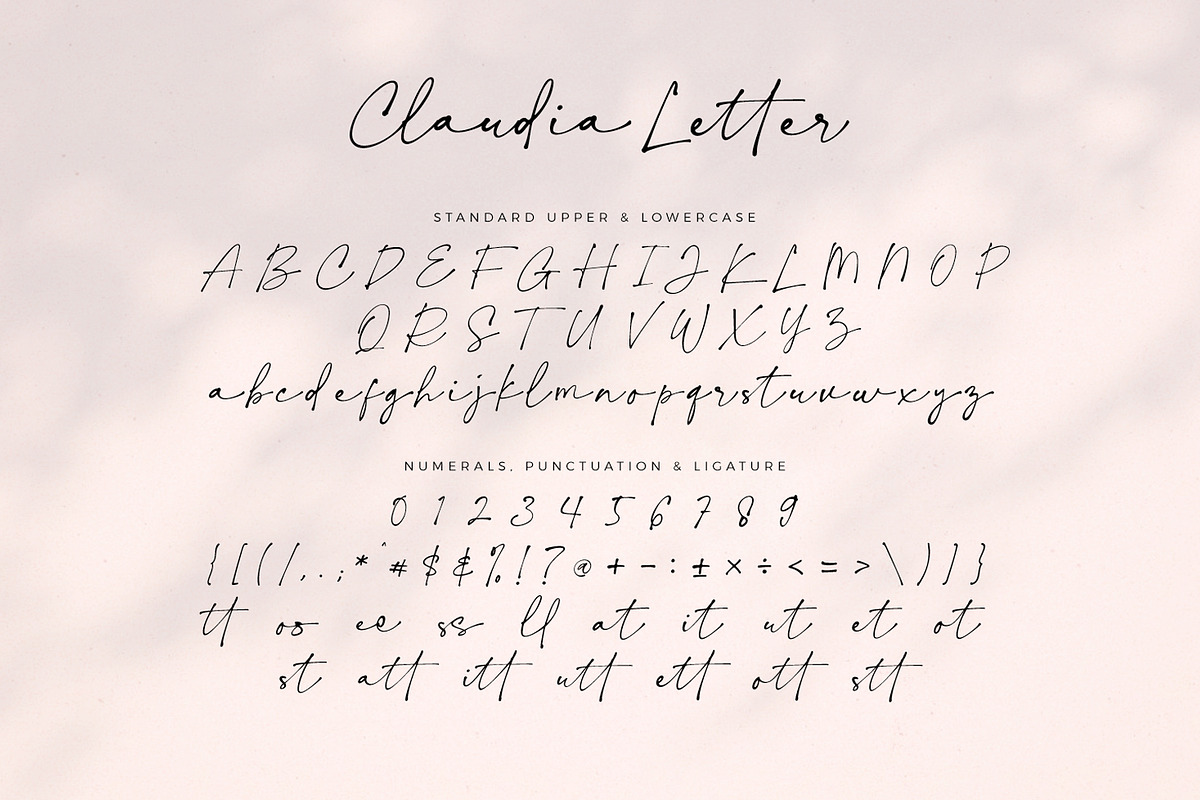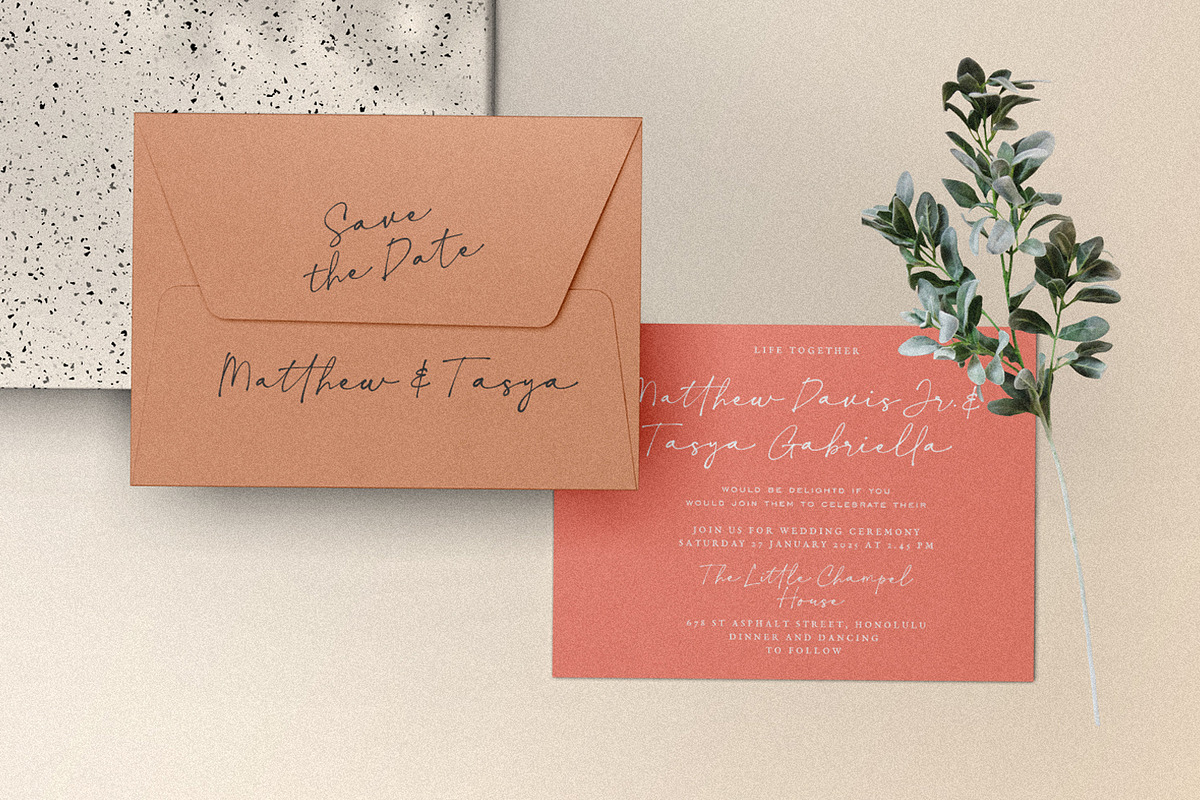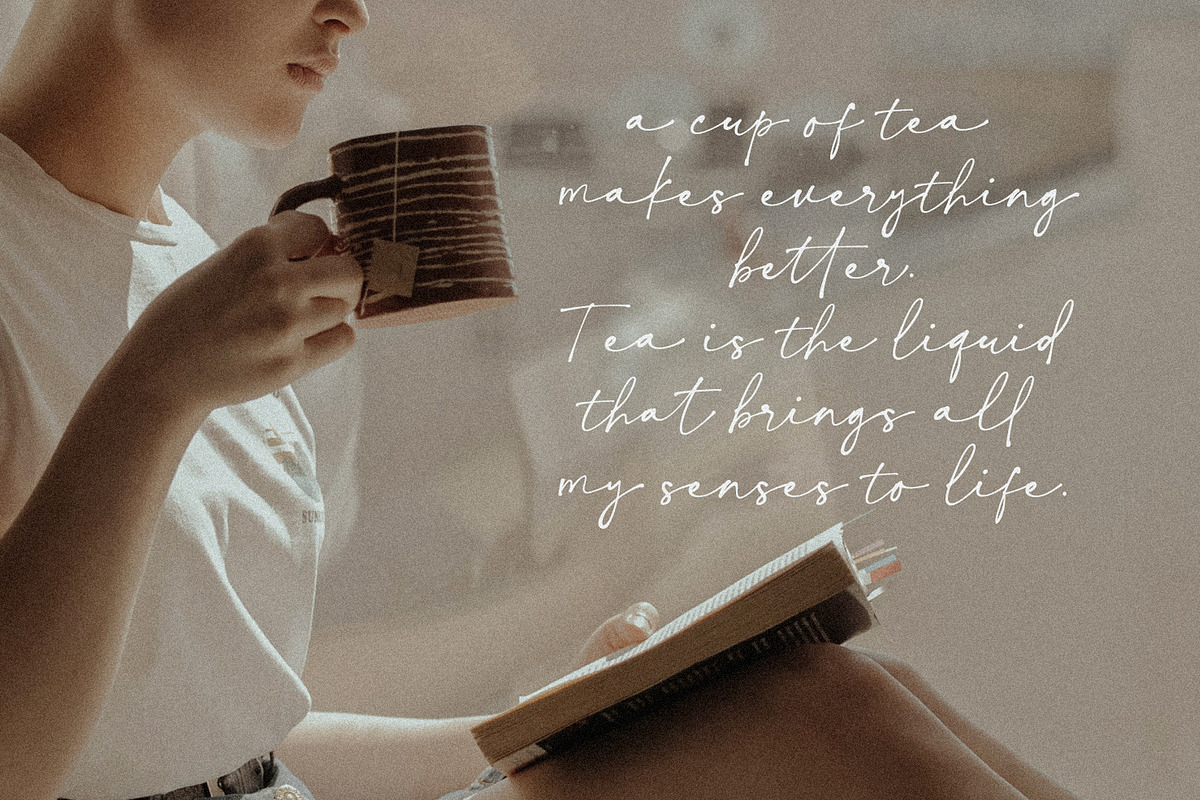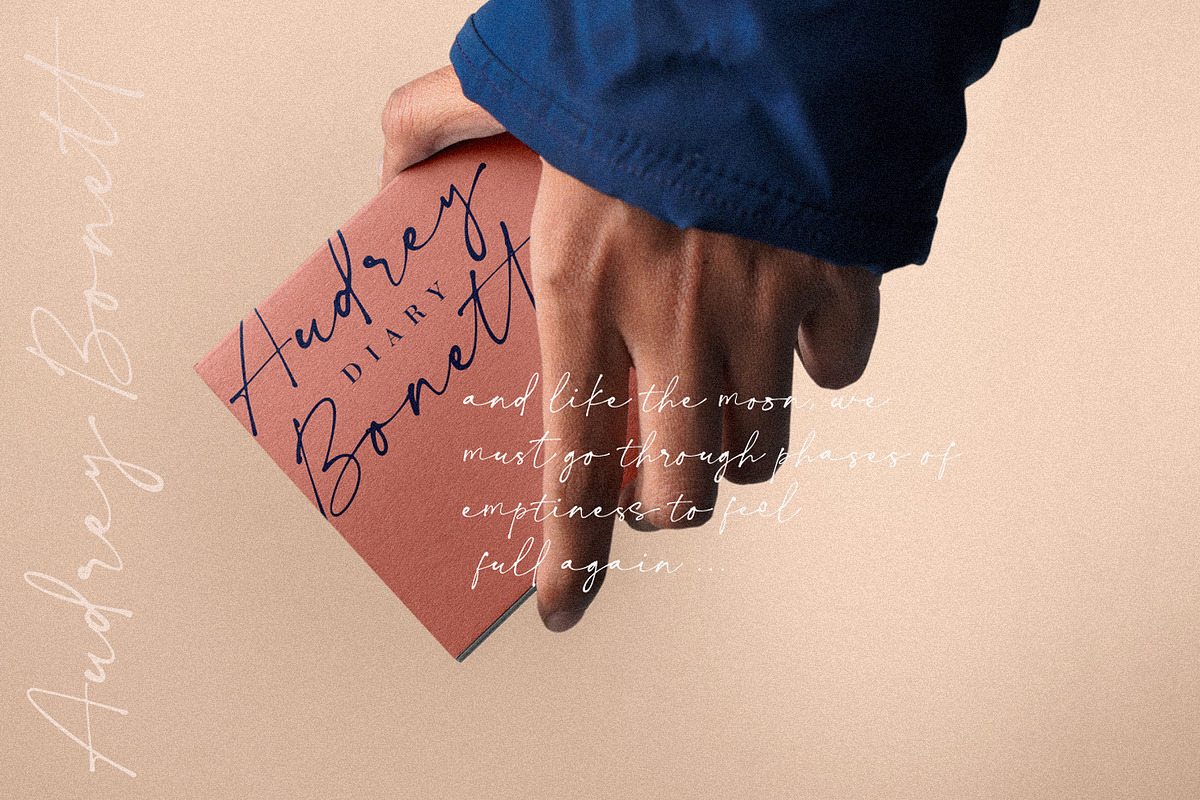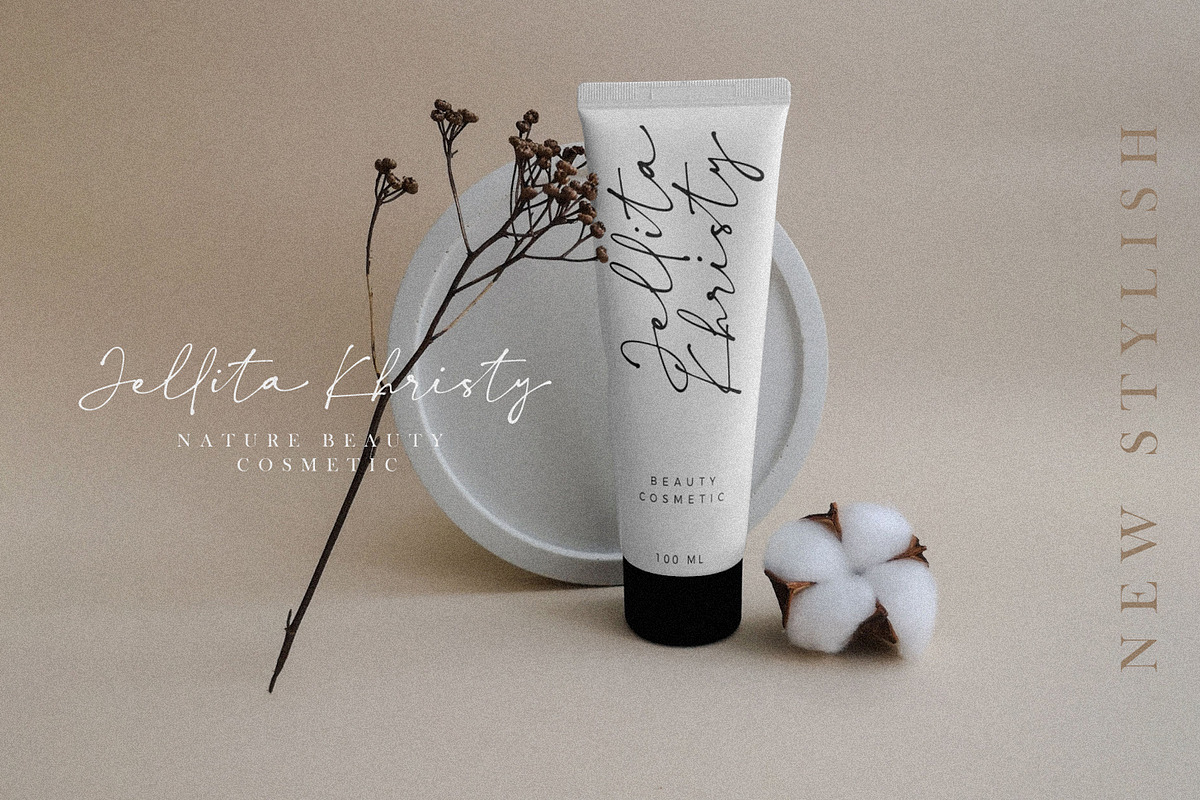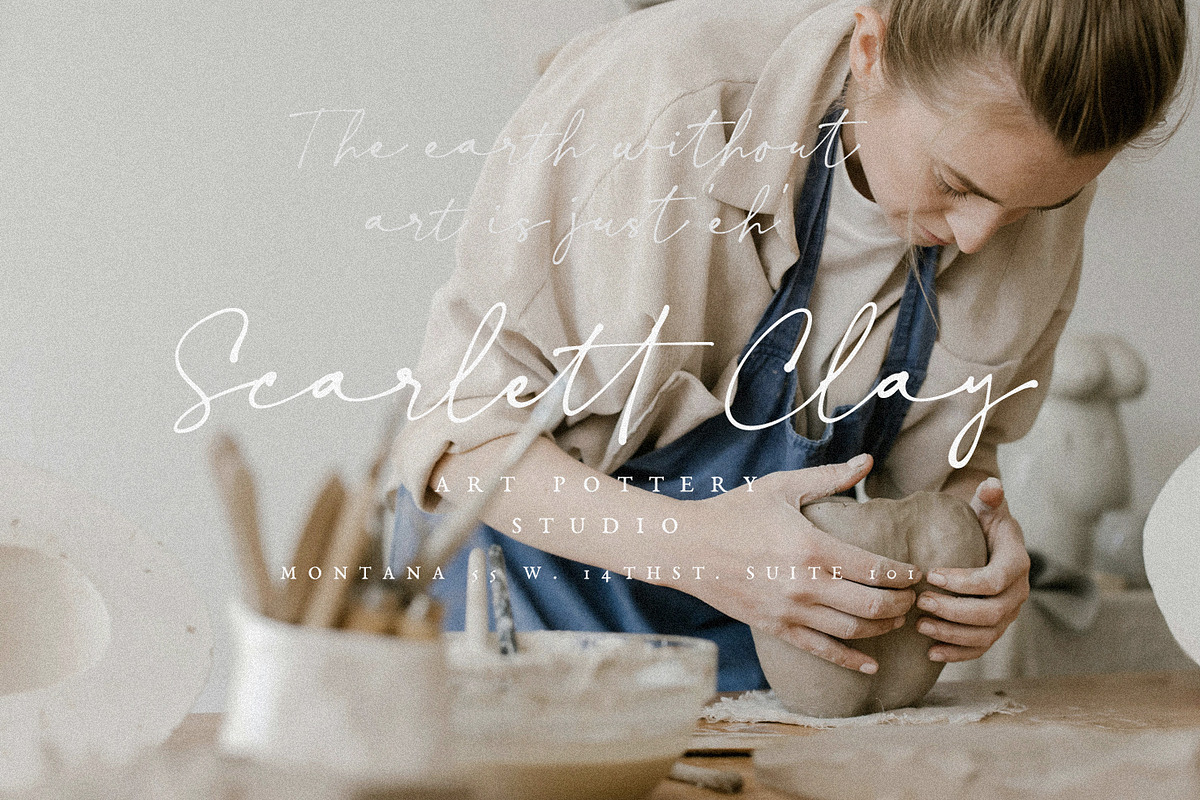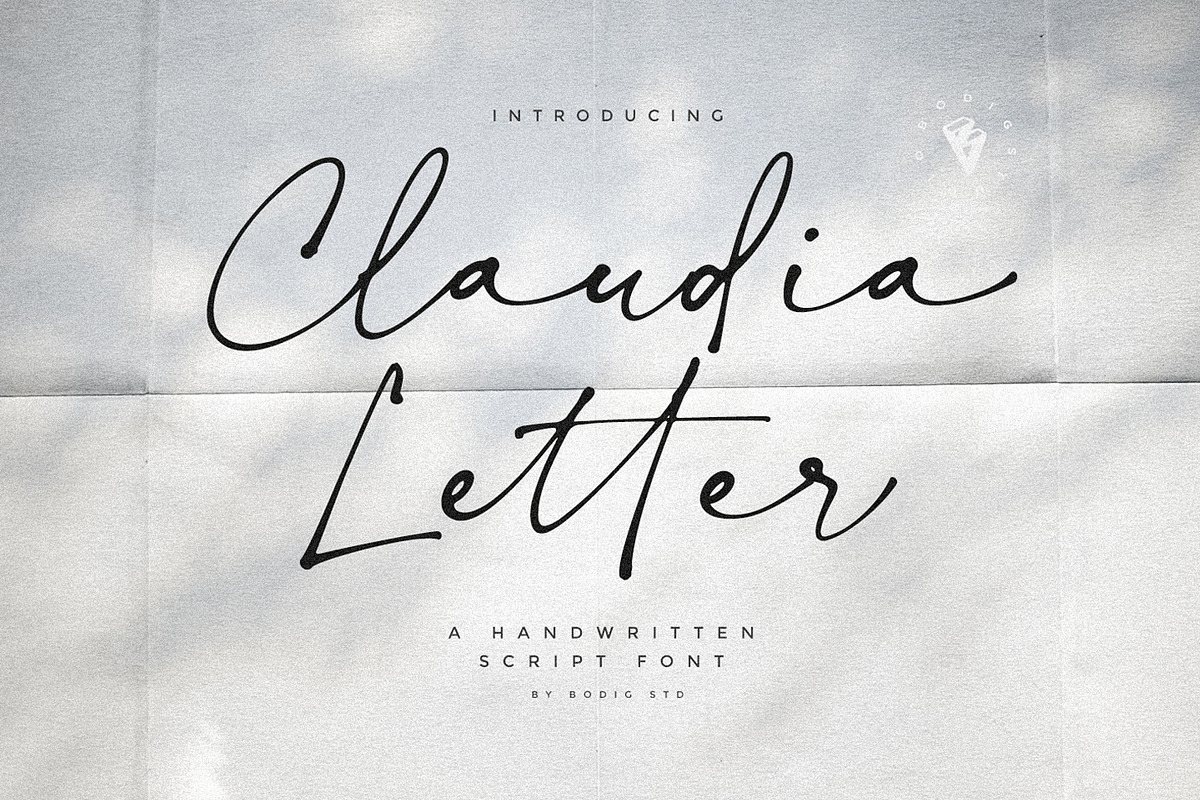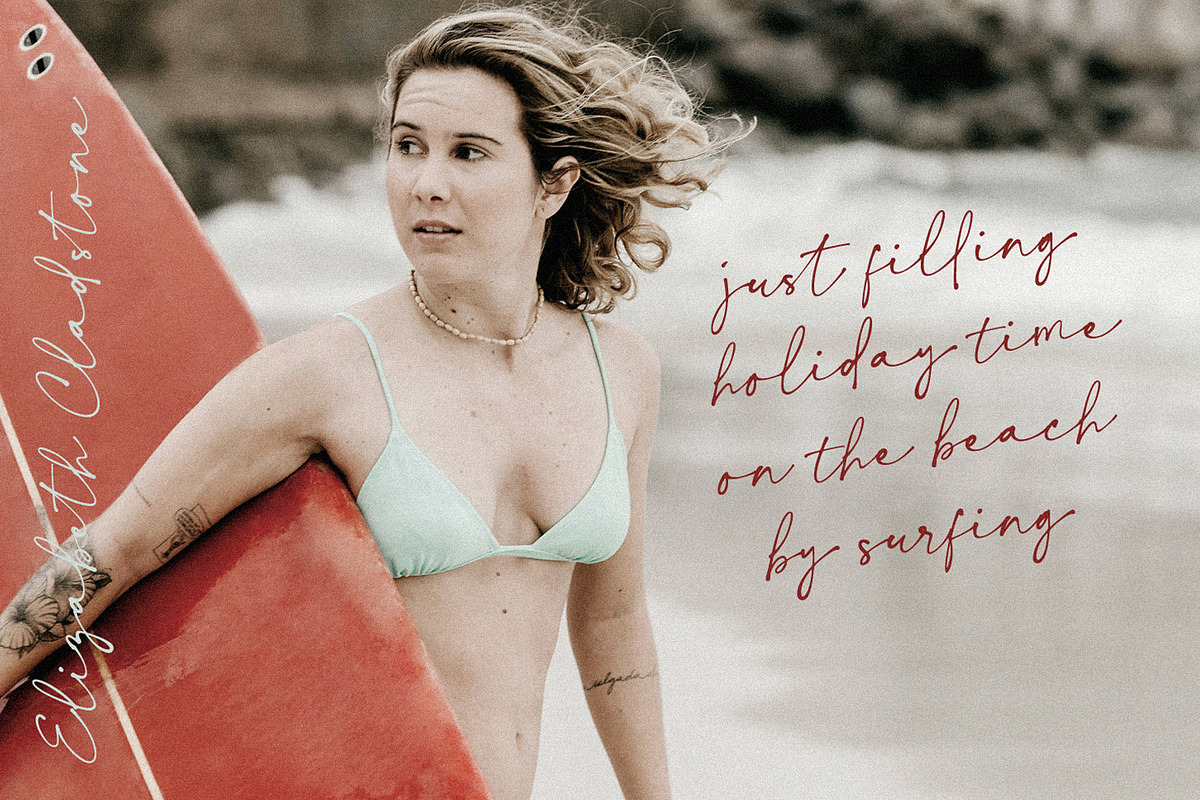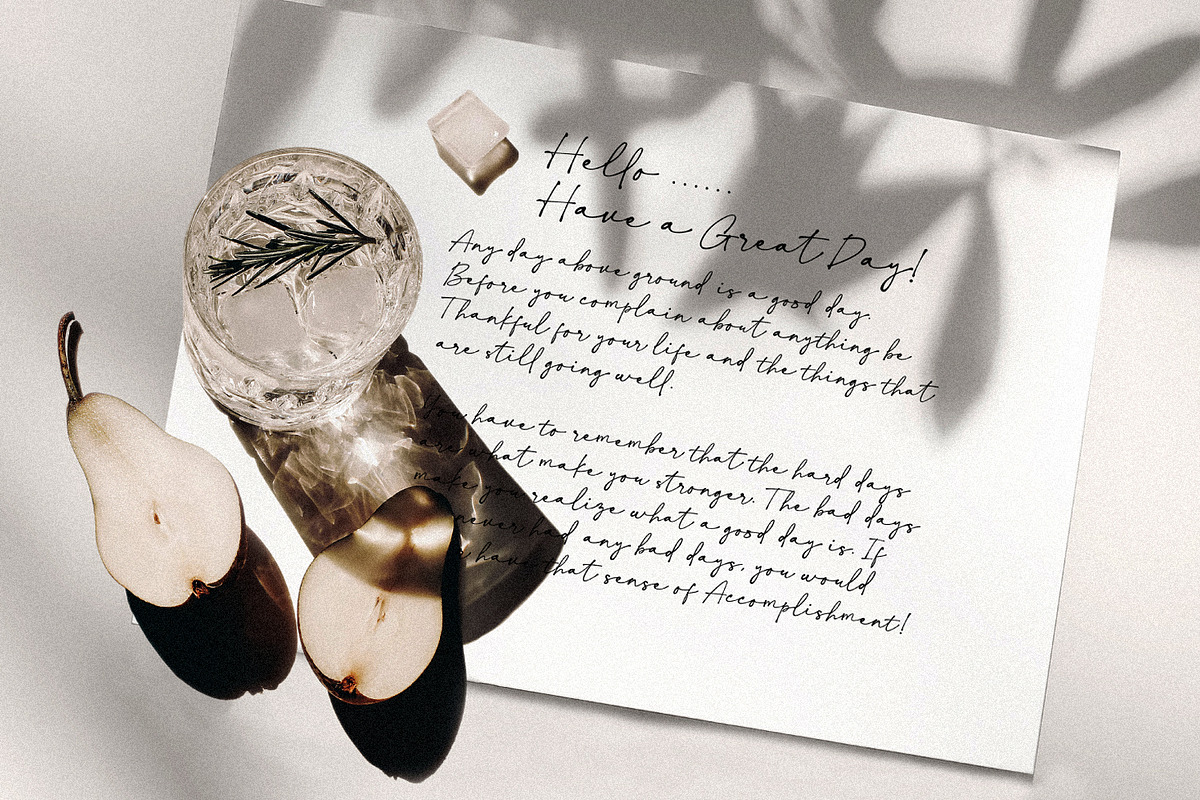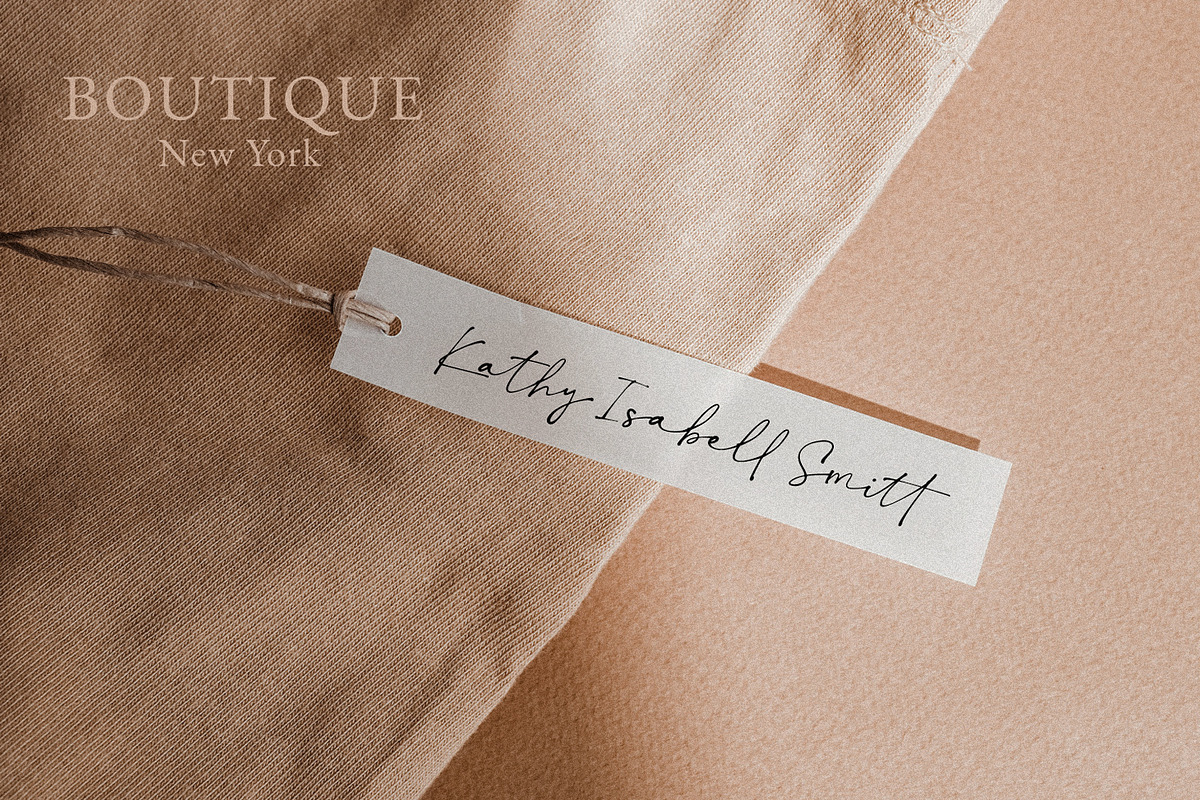
Claudia Letter Font
Claudia Letter is a handwritten script font with a natural style. this font that invites the viewer to appreciate the nuances conveying a sense of organic handwriting feel. It's versatility makes it suitable for a range of design applications from high-end invitations to sophisticated branding materials, Instagram quotes, covers, branding logo, business card, handcrafted touch to any design.